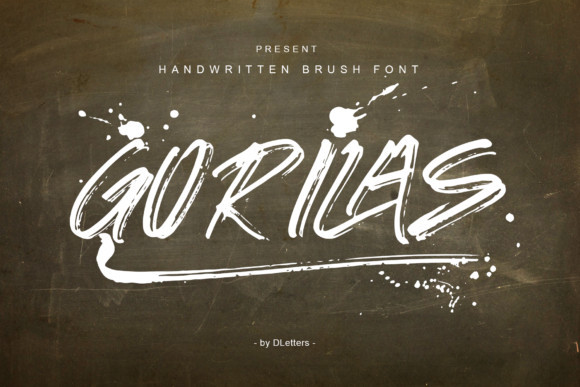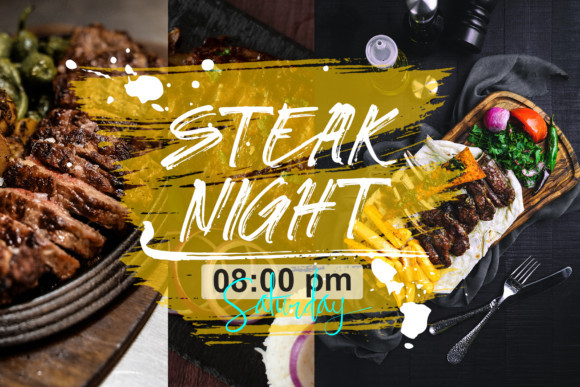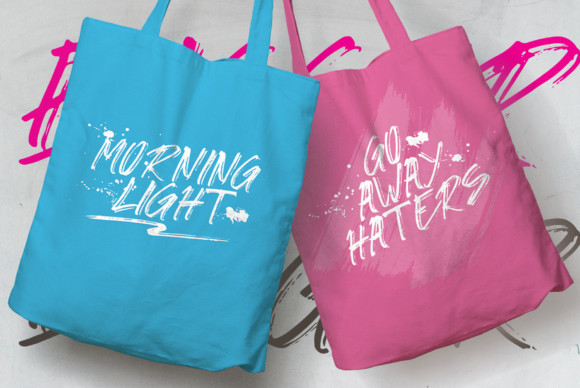
Gorilas Font
Gorilas is an incredibly unique display font, created with the help of a brush pen. Add it to your creative ideas and notice how it makes them stand out!